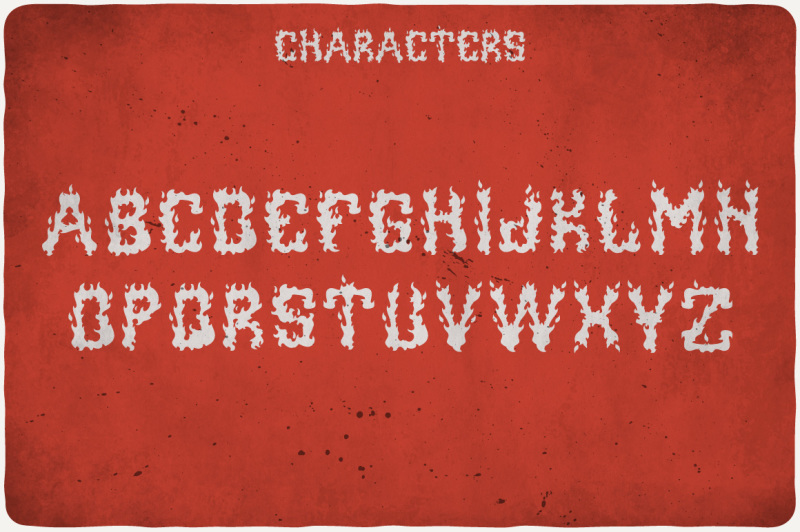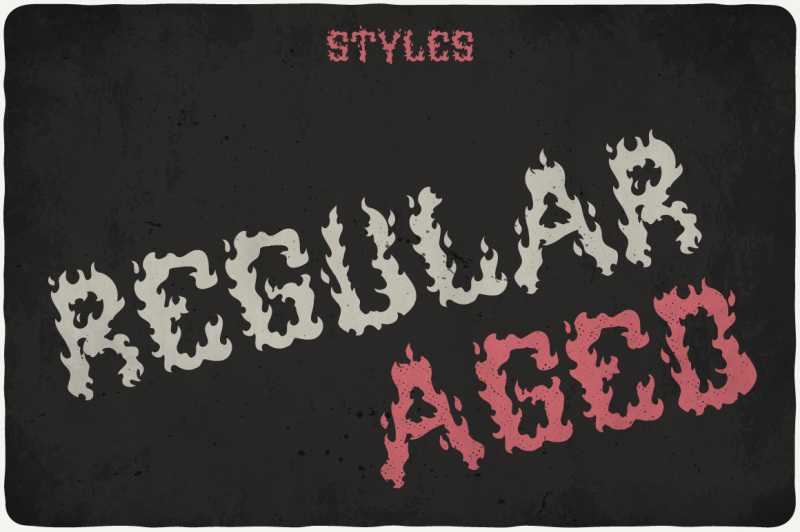
Ignition Typeface
Introducing a original look label typeface named "Ignition". It's made in buried style :) Typeface is good viewed on any hot design. Complect: EPS10 files with all graphics stuff from screenshots OTF font files (styles look at 4th preview) Thank you!
Ignition
Ignition Light FX
Ignition Outline FX
Ignition Aged
Ignition Outline And Light